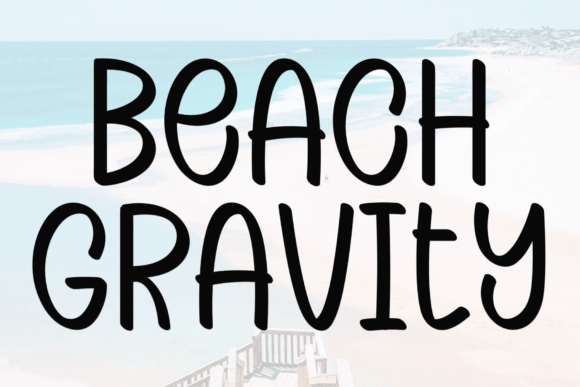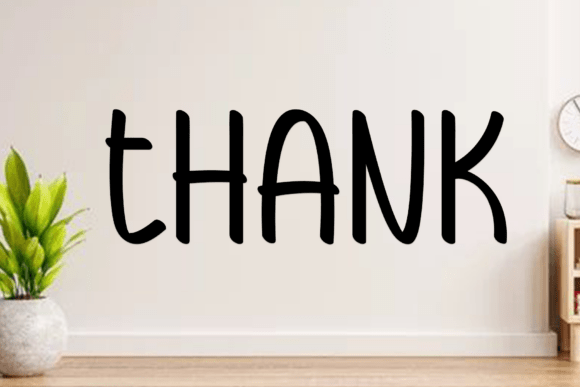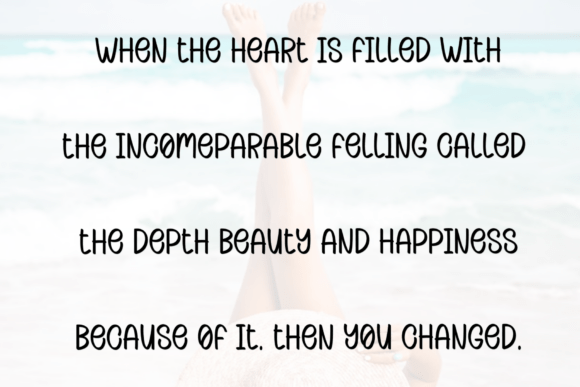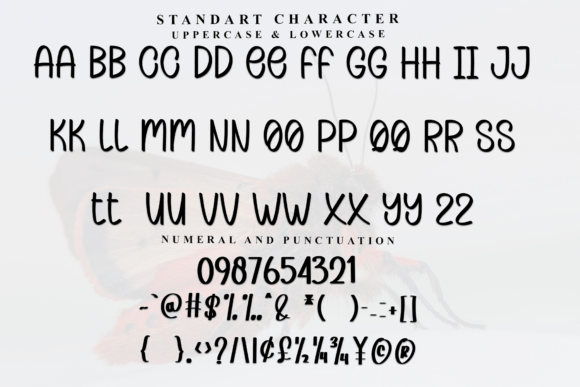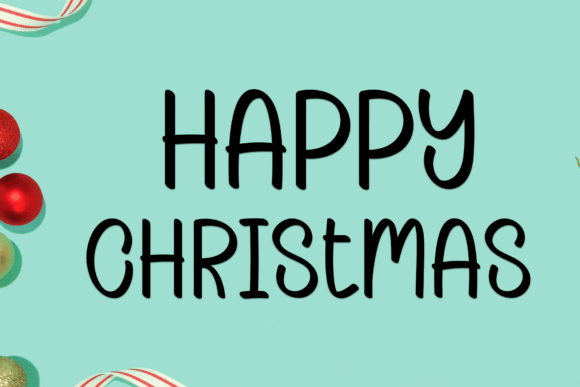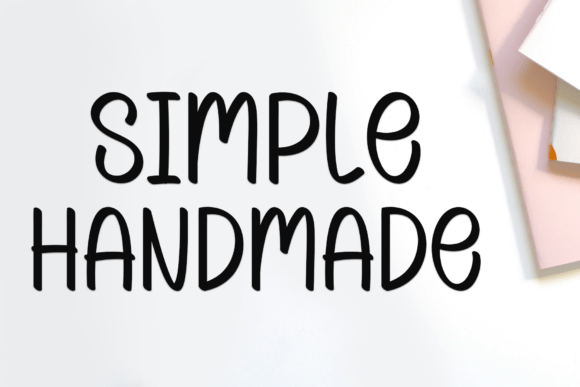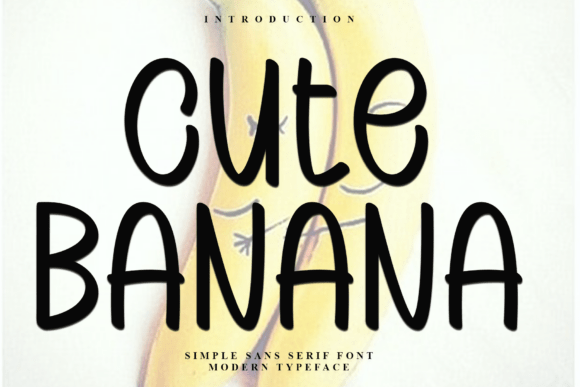
Cute Banana Font: Elevate Your Designs with a Sweet and Unique Touch
Are you tired of using the same old fonts in your design projects? Look no further than the Cute Banana Font, a beautiful and eye-catching typeface that’s sure to add a special touch to your creations. Designed with a soft, unique feel, this font is perfect for designers, crafters, and artists looking to make their work stand out.
A Font with Character
The Cute Banana Font boasts distinctive strokes that give it a special character, making it both meaningful and versatile for future use. Its unique design ensures that your text will never go unnoticed, adding a playful and whimsical feel to any project. Whether you’re working on a logo, branding materials, or social media graphics, this font is sure to make a lasting impression.
One of the best things about the Cute Banana Font is its incredible versatility. With a wide range of characters, you can use it to create everything from fun and playful designs to more sophisticated and elegant ones. This font is perfect for:
- Design projects: logos, branding materials, brochures, and more
- Crafts: handmade cards, invitations, and DIY projects
- Artistic and creative works: illustrations, paintings, and digital art
A Natural Font Style for a Wide Range of Products
The Cute Banana Font features a natural, organic design that’s perfect for creating products that appeal to a wide range of audiences. Its soft and unique feel makes it ideal for:
- Stationery and paper products: notebooks, journals, and greeting cards
- Digital products: social media graphics, blog posts, and ebooks
- Merchandise: t-shirts, mugs, and other promotional items
Why Choose the Cute Banana Font?
So why choose the Cute Banana Font over other fonts? Here are just a few reasons:
- Unique design: The Cute Banana Font features a distinctive and eye-catching design that’s sure to make your work stand out.
- Versatility: With a wide range of characters, this font is perfect for a variety of design projects and creative works.
- Natural feel: The font’s natural, organic design makes it perfect for creating products that appeal to a wide range of audiences.